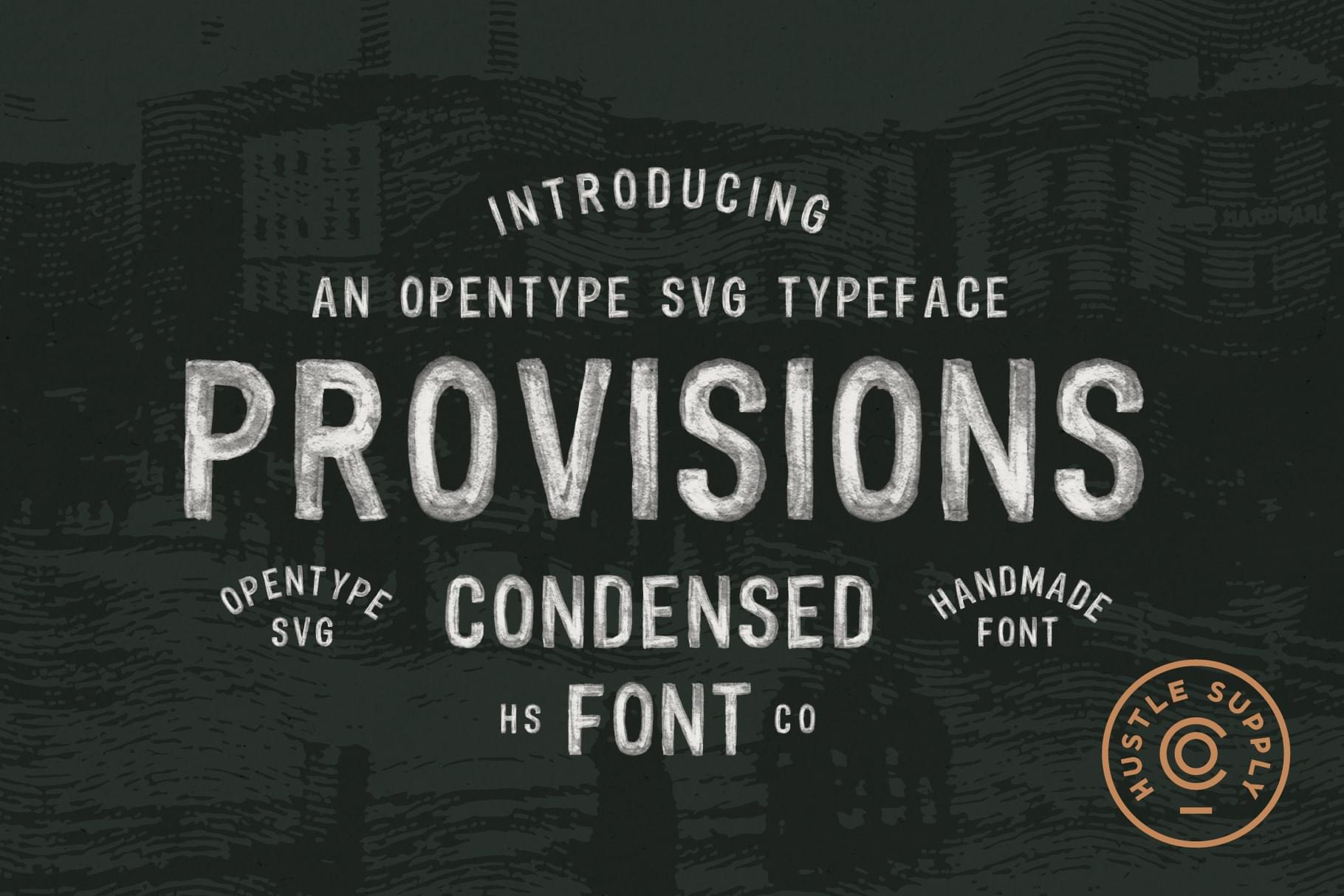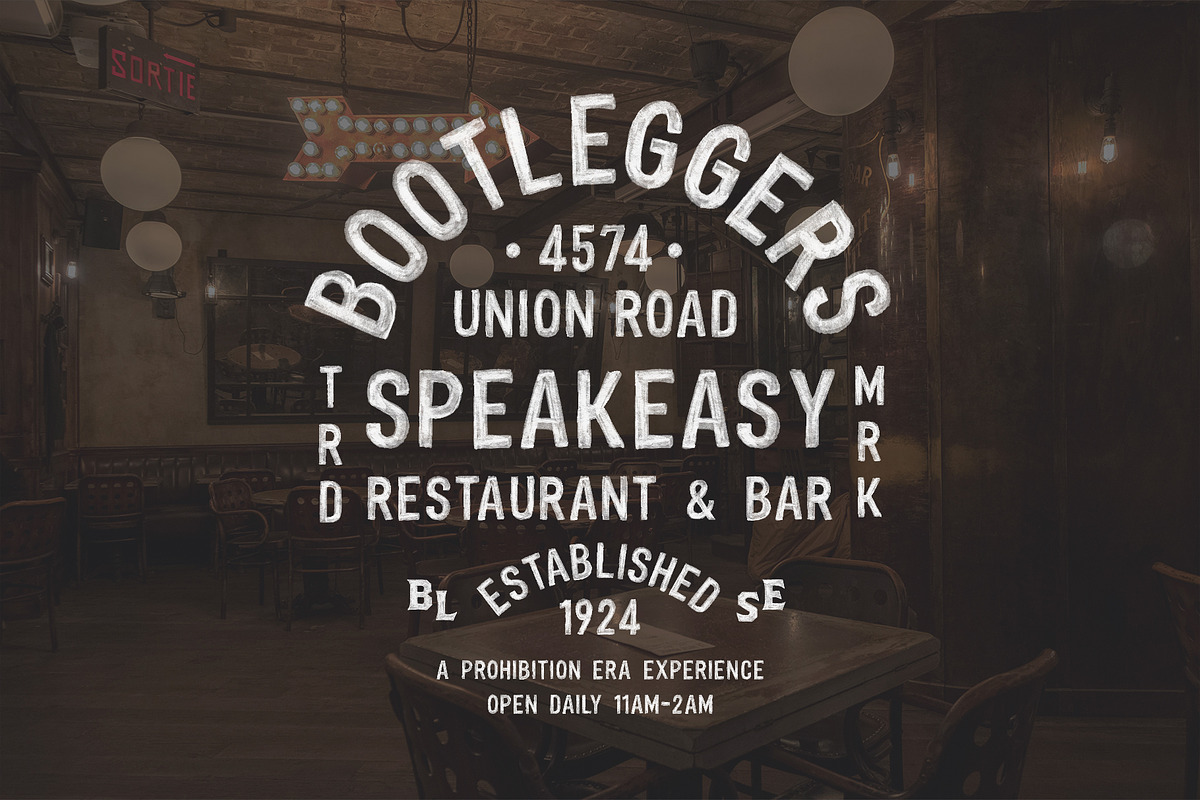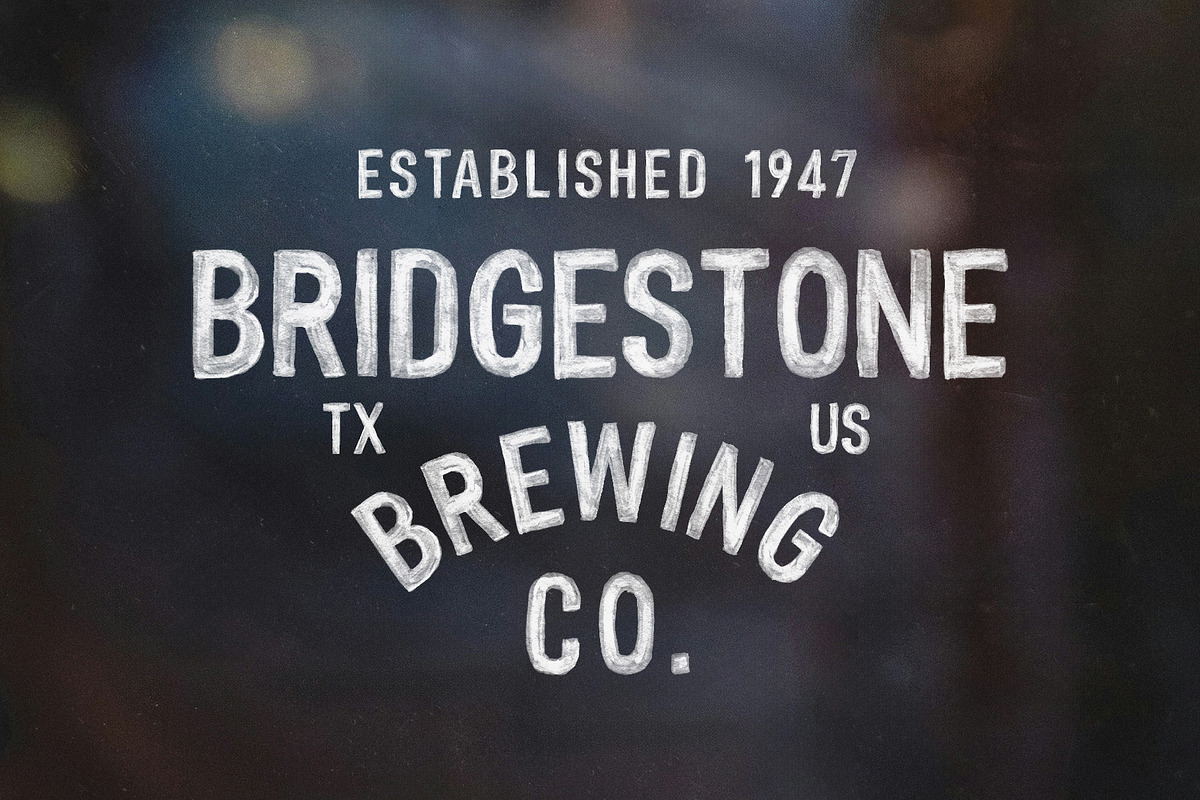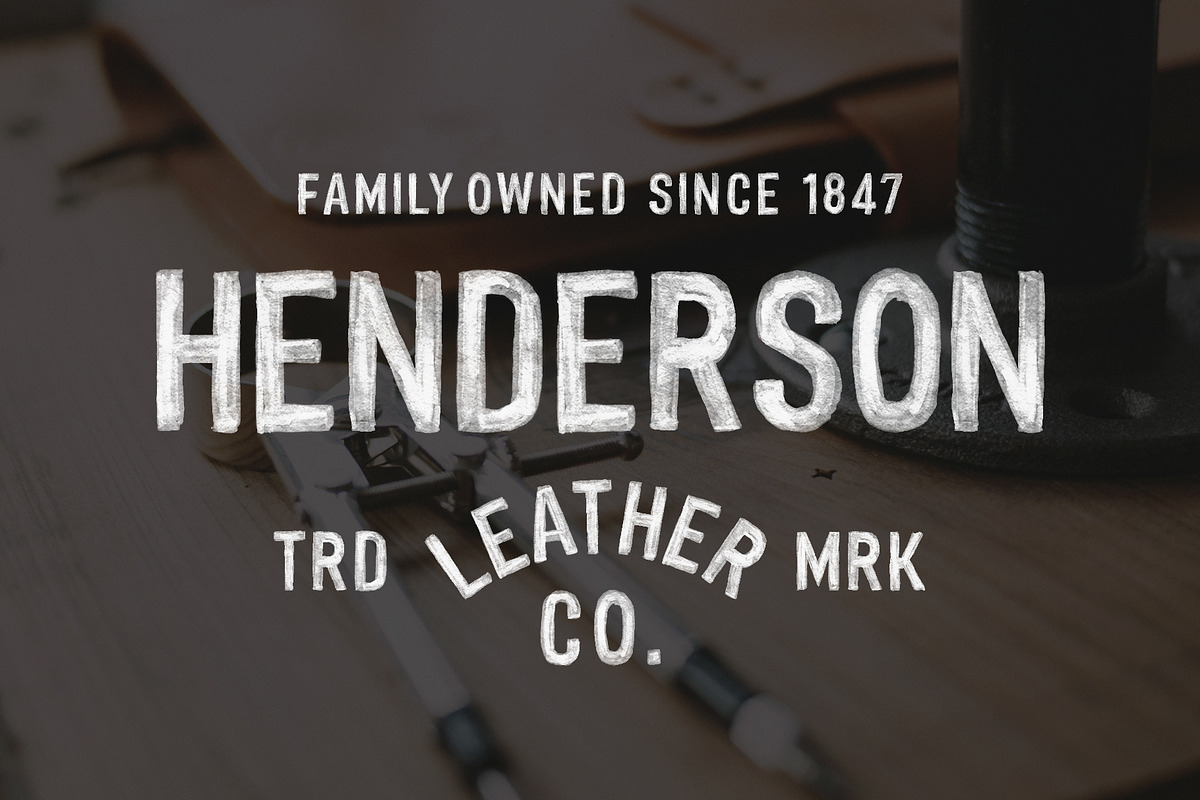
Provisions: Handcrafted SVG Typeface
Introducing Provisions: A Handcrafted Opentype SVG Typeface
Provisions is a meticulously handcrafted Opentype SVG typeface designed to bring a rustic, vintage heritage feel to your typography. Each letter was carefully hand-painted, scanned, and refined to achieve a photorealistic, textured look that captures the authenticity of a handmade font.
Whether you're creating bold headlines, branding materials, or anything in between, Provisions allows you to instantly type out stunning, realistic text with the beauty of hand-crafted detail. The Opentype SVG format ensures that every curve and stroke retains its authentic, hand-painted appearance, elevating your designs with a touch of old-world craftsmanship.
Designed to evoke a sense of warmth and heritage, Provisions is perfect for projects that require a rugged, rustic aesthetic with modern functionality. Let your text stand out with the unique, textured charm of Provisions—where craftsmanship meets cutting-edge digital typography.